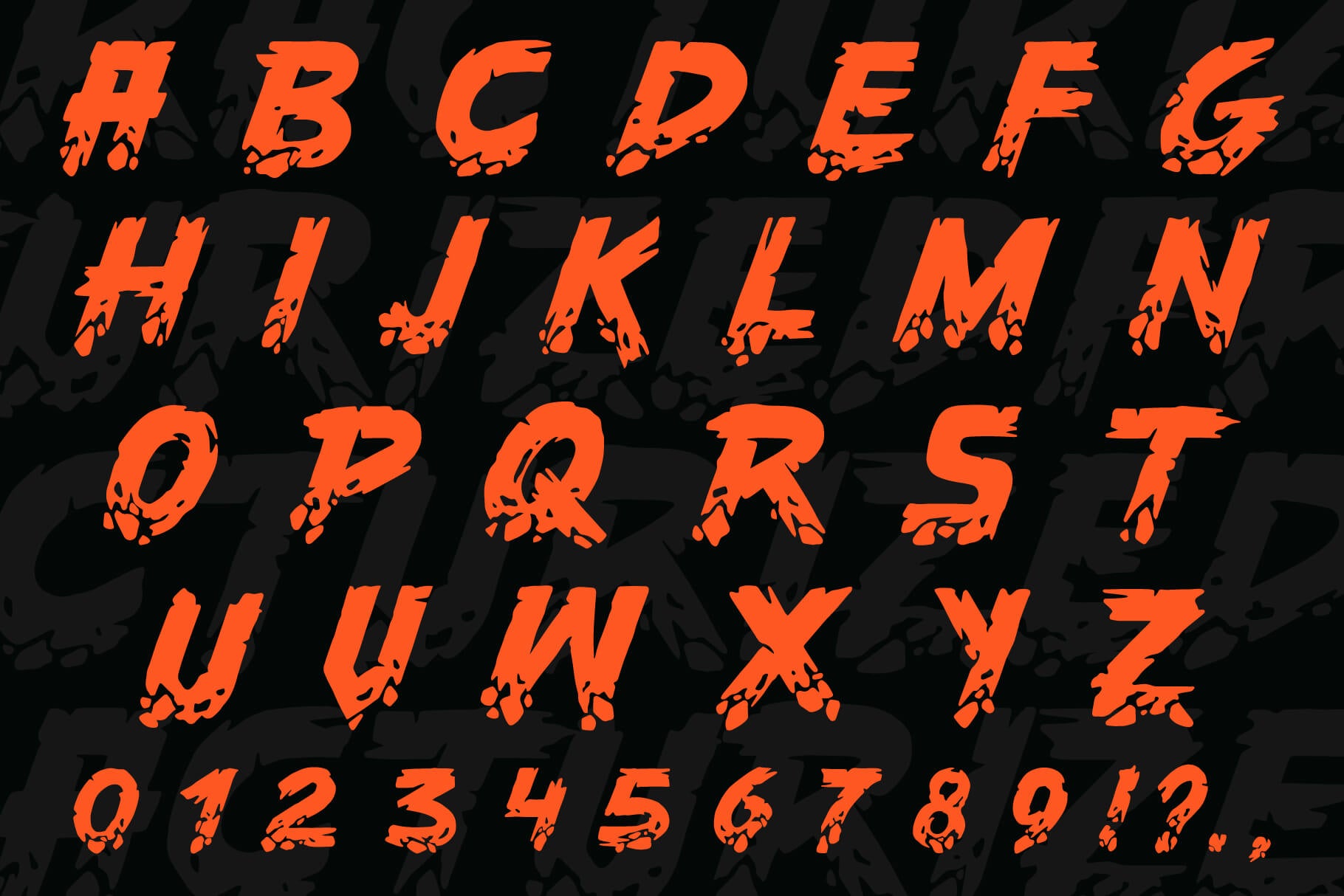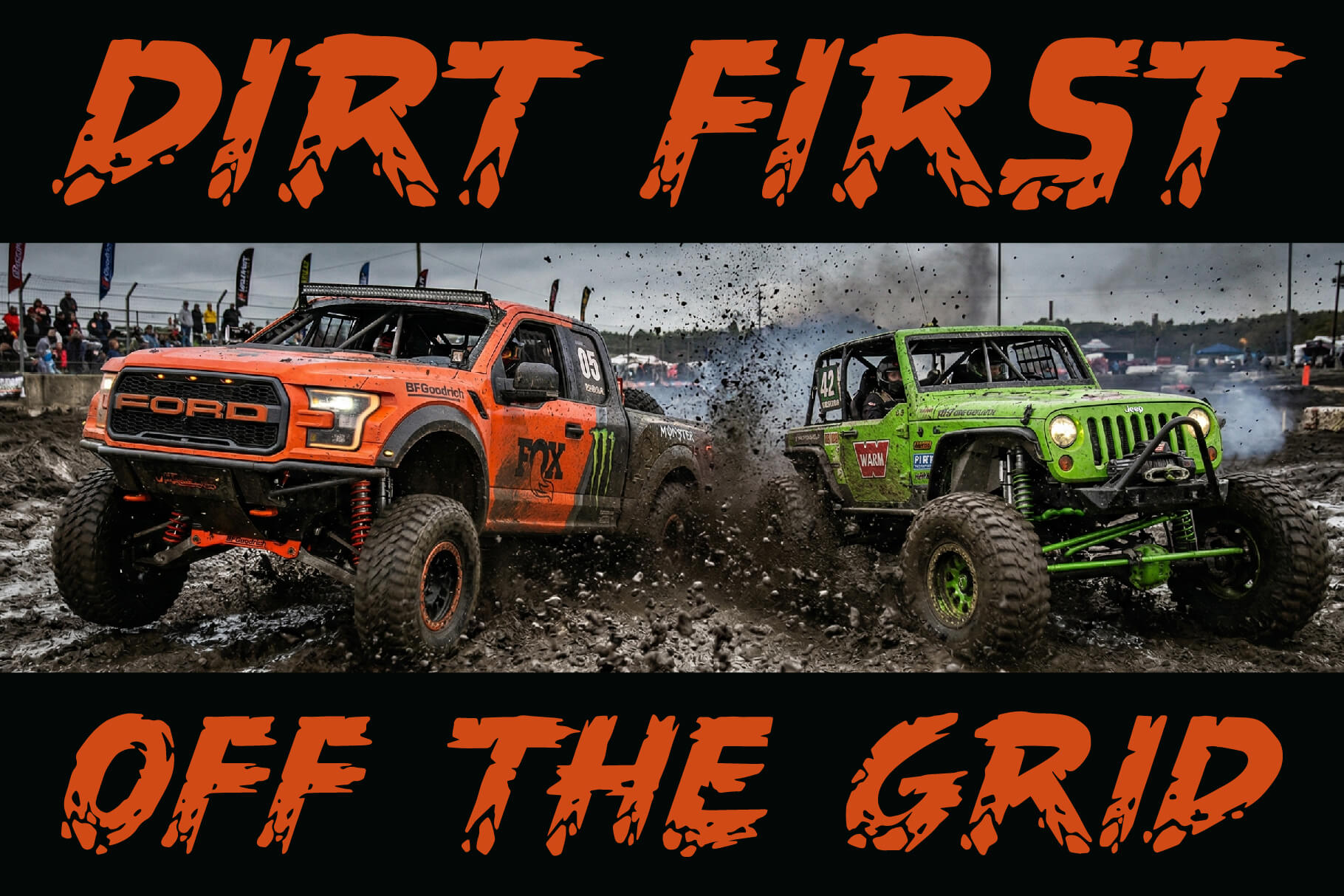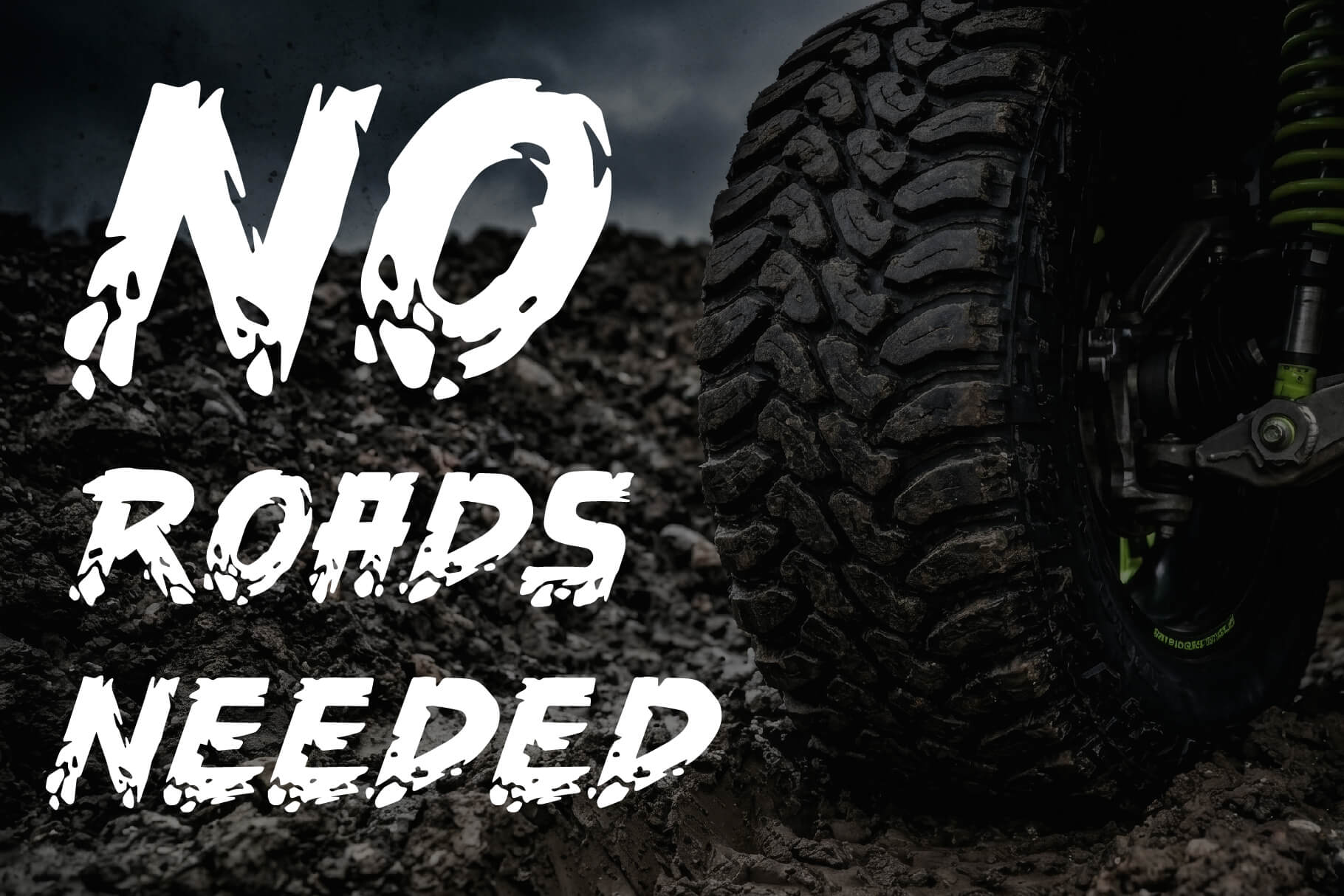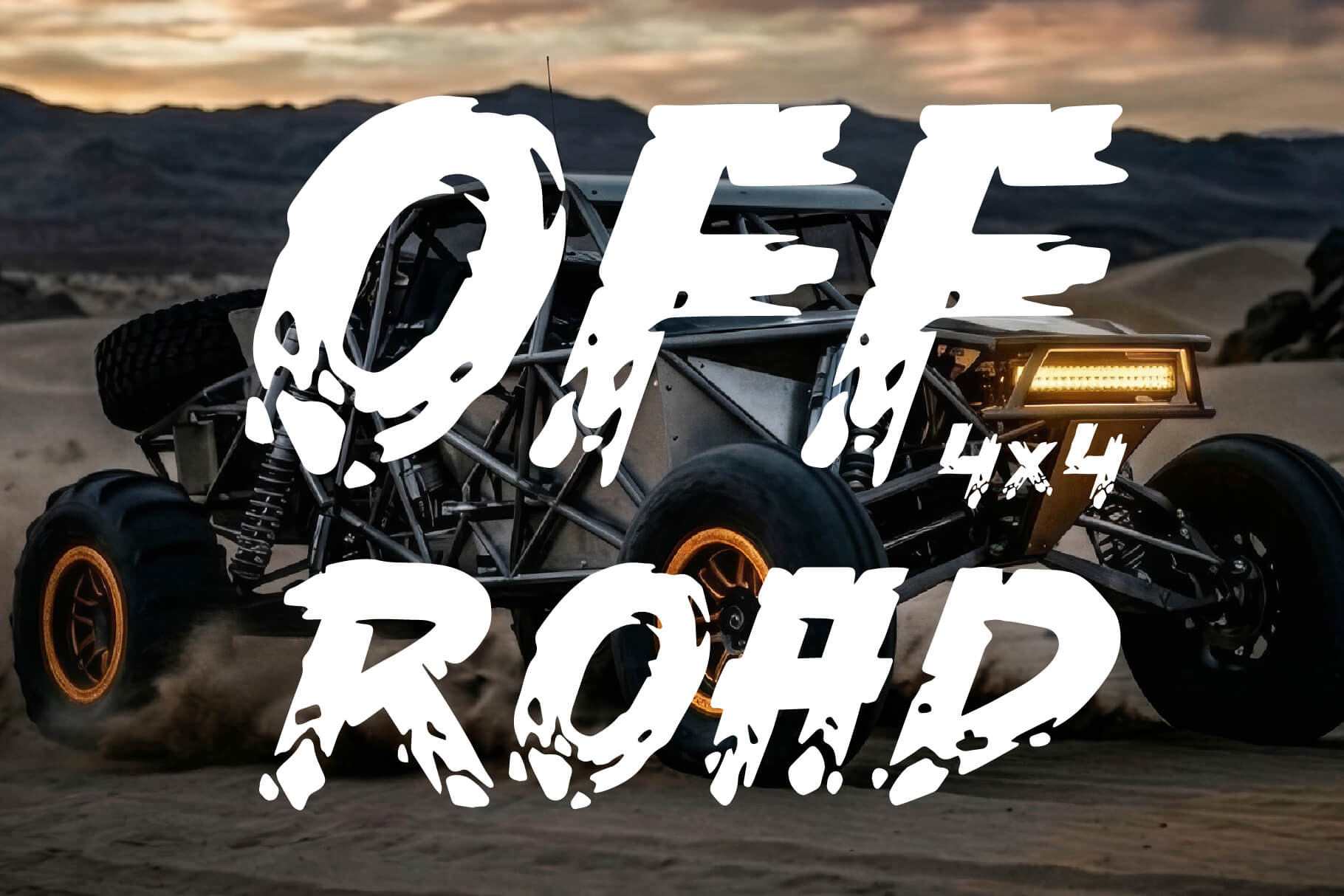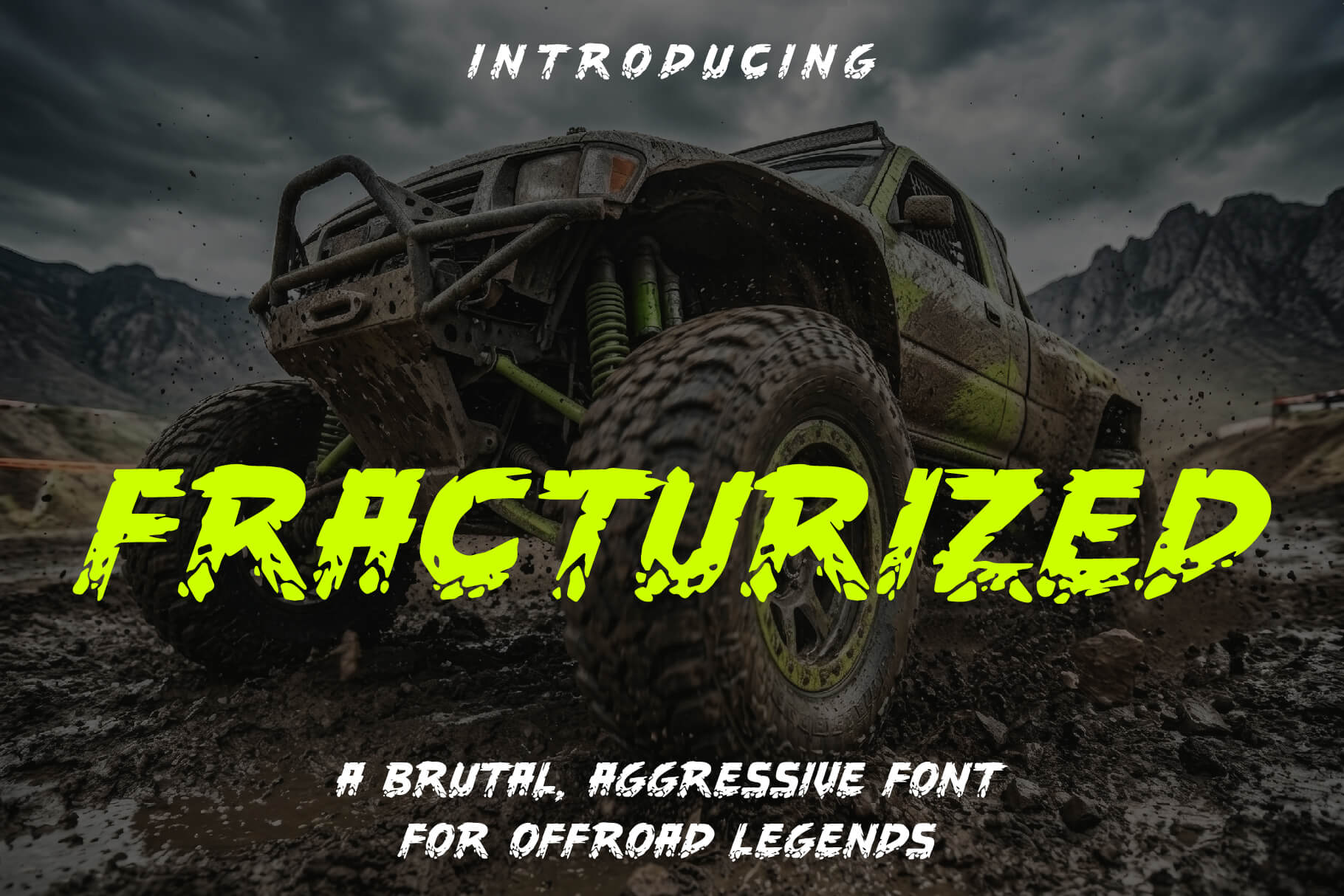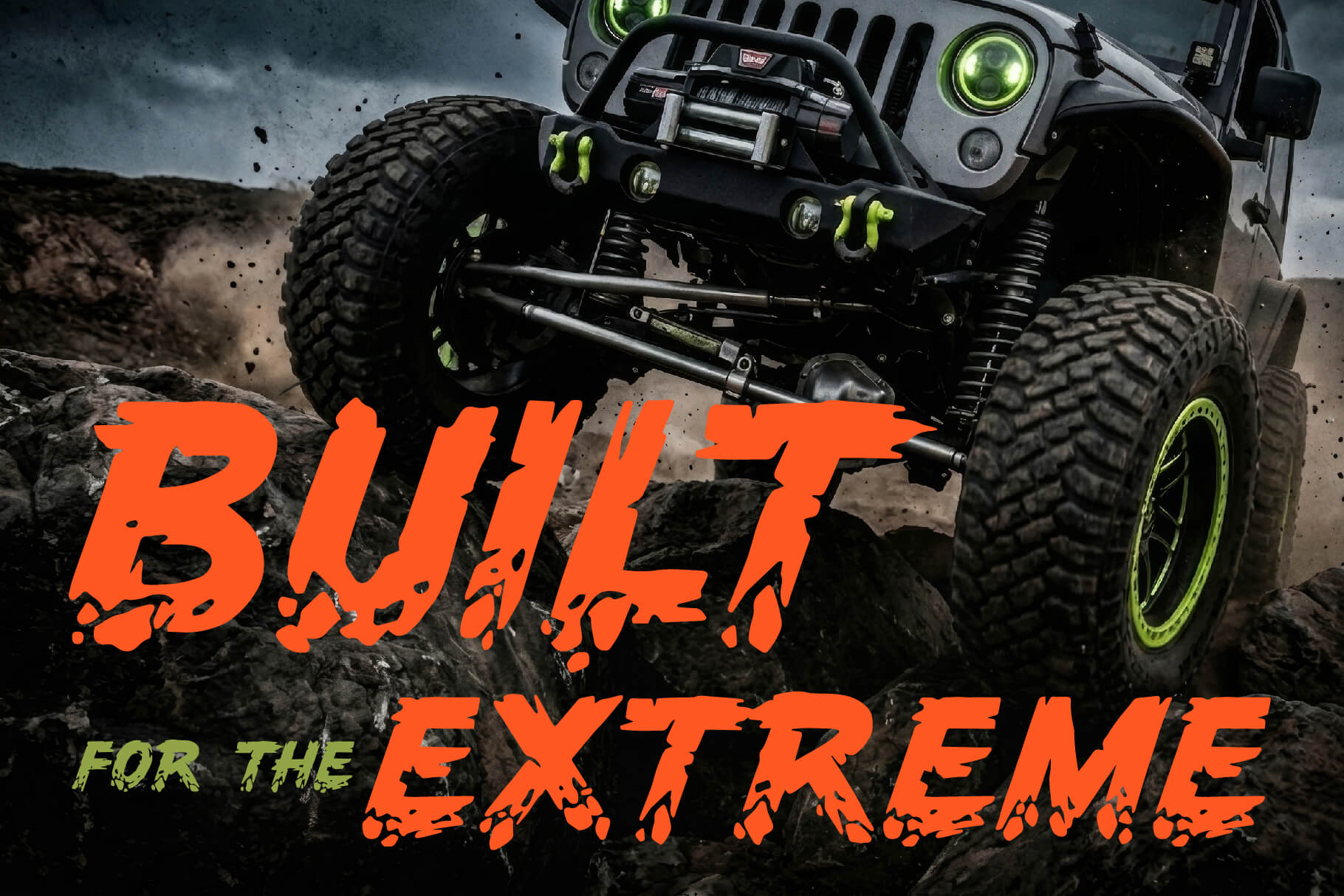
FRACTURIZED display font
FRACTURIZED is a fractured, glitch-inspired display typeface built from broken, distorted letterforms.
Sharp cuts and shifted fragments give it a futuristic, high-tech edge while keeping a strong, readable presence at display sizes.
It brings instant energy to anything that needs a digital, cyber or experimental feel.
FRACTURIZED works especially well for techno and cyber branding, music visuals, posters and bold headlines.
IDEAL FOR
– Techno and cyber branding
– Music and event visuals
– Posters and covers
– Gaming and streetwear
– Headlines and logos